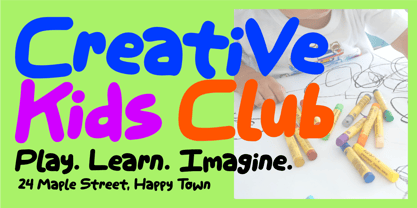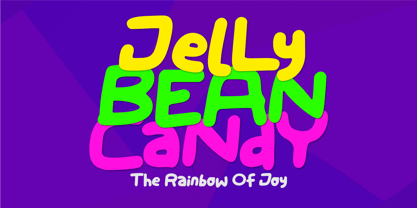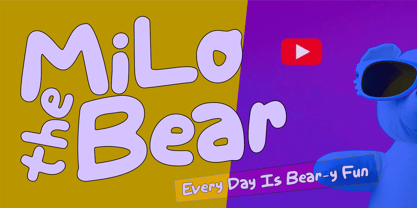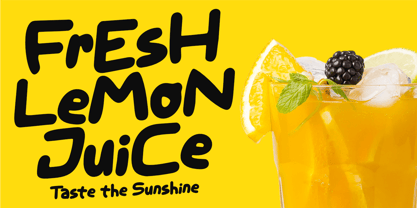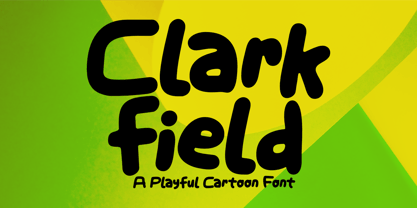
Clarkfield
Die Schriftfamilie Clarkfield wurde von Aldy Sidik entworfen und von Epiclinez veröffentlicht. Clarkfield enthält 1 Stile. Mehr über diese Familie
Clarkfield is a charming and playful cartoon display font that brings warmth, fun, and creativity to every design. Featuring bold, rounded letterforms with a handcrafted touch, this kid-friendly typeface is designed to grab attention while remaining highly readable. Its cheerful personality makes it perfect for projects that need a bright, friendly, and imaginative look.
Inspired by the joyful world of children and playful creativity, Clarkfield is ideal for children's books, storybook covers, toy packaging, candy labels, school projects, birthday invitations, greeting cards, and educational materials. Its bold and expressive style also works beautifully for logos, branding, product packaging, stickers, posters, apparel, social media graphics, YouTube thumbnails, mobile games, and family-oriented businesses.
Whether you're creating branding for a toy shop, bakery, café, daycare, kids' clothing brand, or fun event, Clarkfield adds a lively and approachable character that makes every word stand out. The soft curves and bold shapes create a welcoming appearance that appeals to both children and adults, making it a versatile choice for print and digital designs alike.
Clarkfield pairs effortlessly with colorful illustrations and playful layouts, making it suitable for headlines, logos, merchandise, website banners, advertising campaigns, and packaging. Its handcrafted cartoon style delivers a perfect balance of fun, readability, and personality, helping your designs leave a memorable impression.
If you're looking for a font that combines creativity, happiness, and versatility, Clarkfield is the perfect choice. From branding and logos to packaging, invitations, and children's products, this delightful display font transforms ordinary text into eye-catching designs full of imagination, charm, and playful energy.